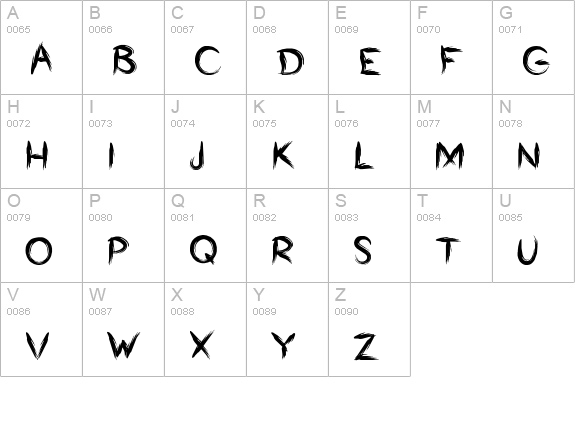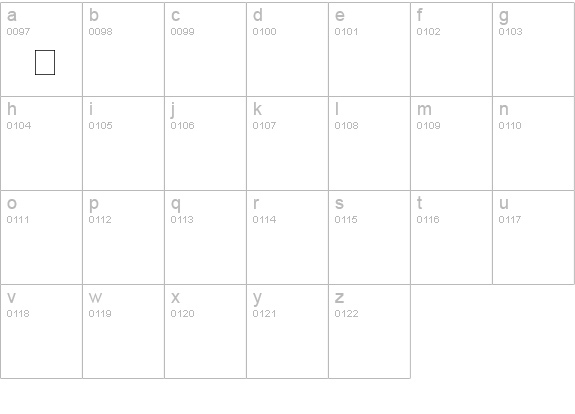
Bumrush Font Details
Bumrush font is a unique and eye-catching typeface that exudes a sense of energy and boldness. Its distinct style is perfect for making a statement in your designs, whether for posters, logos, or social media graphics. The powerful and dynamic look of Bumrush font will surely capture the attention of your audience and make your message stand out. The best part is that Bumrush font is completely free to download at FontsMarket.com. This means you can easily access this striking font and use it in your projects without any cost. Don't miss out on the opportunity to add this impressive typeface to your collection and take your designs to the next level with Bumrush font.